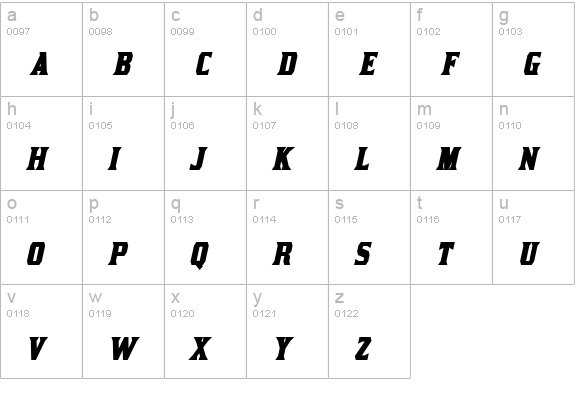
Kirsty Bold Italic Font Details
Kirsty Bold Italic is a strong, high-contrast, italic variant in the Kirsty typeface family \xE2\x80\x94 well suited to headlines, attention-grabbing titles, and strong calls-to-action.
Introducing Kirsty Bold Italic, a captivating and versatile font that will add an extra touch of elegance to your designs. Boasting a unique blend of boldness and italic flair, Kirsty Bold Italic effortlessly captures attention and commands a strong presence on any medium. This exquisite font is perfect for a wide range of design projects, making it a must-have in every designer's toolkit. Whether you're creating eye-catching logos, sophisticated branding materials, or stylish editorial layouts, Kirsty Bold Italic will elevate your creations to new heights of sophistication and professionalism. With its distinct and graceful letterforms, Kirsty Bold Italic is sure to make a lasting impression. Its bold strokes exude confidence, while the subtle italic slant adds a touch of refinement and artistry. This harmonious combination creates a visual balance that is both captivating and visually appealing. But what makes Kirsty Bold Italic even more remarkable is that it is freely available to download at FontsMarket.com. Yes, you heard it right – this incredible font can be yours without breaking the bank! With just a few clicks, you can unleash the full potential of Kirsty Bold Italic and start creating stunning designs that will leave a lasting impact. So why wait? Take your design projects to the next level with Kirsty Bold Italic. Download it for free at FontsMarket.com and let your creativity soar. Unleash the power of this captivating font and watch as your designs come to life with elegance and distinction.